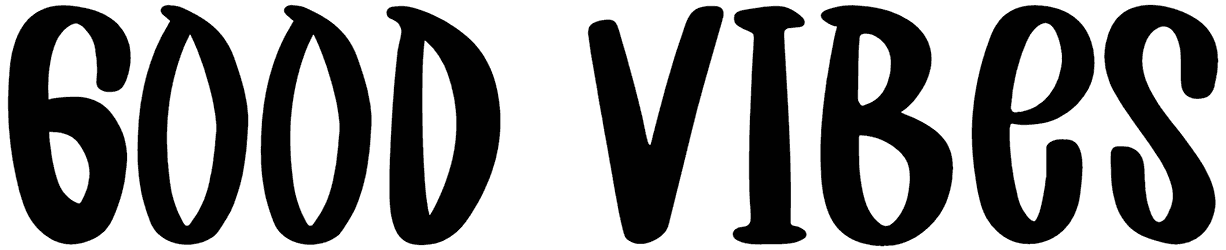
Good Vibes Font
You can easily thunderstruck the audience even at the first contact with your graphic content by using a glamorous script font such as Good Vibes. If you are in the mood for adding a sense of personalization, playfulness, momentum, or vivacity, this magical handwritten font can be really helpful to achieve your goal.
Due to its curved and crooked characters, it looks perfectly fit for illustrations, children’s book covers, video game banners, or digital brochures.